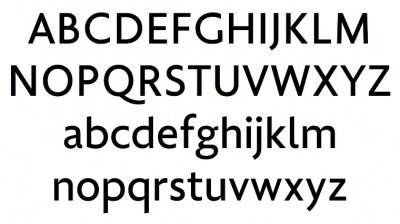
Quadrat Serial Free Download
Quadrat Serial Font Free Download
Please note, you must purchase this font for commercial use. You can download Quadrat Serial Font Free Download for testing purposes and explore its clean, modern design. Quadrat Serial Font is perfect for contemporary branding, corporate materials, websites, and any project that requires a sleek, professional look.
With its geometric shapes and balanced structure, Quadrat Serial Font brings a polished, sophisticated style to your designs. It’s ideal for use in logos, headlines, business cards, and digital content that needs a minimalist yet impactful appearance.
Quadrat Serial Font Free Download supports multilingual characters, making it versatile for global projects. Its sharp, legible design ensures readability across both print and digital formats, making it a great choice for various applications.